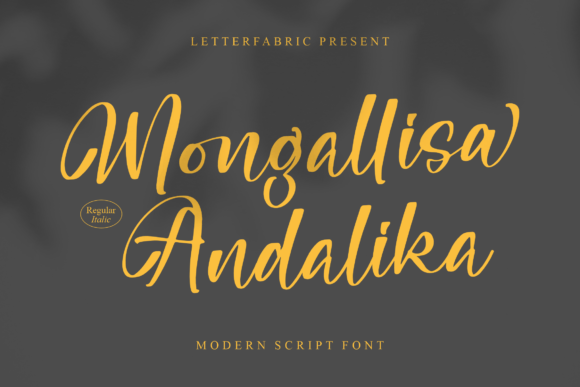
Journey through the world of vintage elegance with Mongallisa Andalika Font, the mesmerizing script that evokes a bygone era. Discover the allure of this enchanting handwritten font, a testament to the timeless beauty of classic typography. Bask in the romantic essence that Mongallisa Andalika Font imparts, adding a touch of nostalgia and charm to your creative endeavors.
With its delicate swashes and graceful curves, Mongallisa Andalika Font is a versatile masterpiece that lends itself effortlessly to a myriad of applications. Craft heartfelt greeting cards that convey your emotions with authenticity. Design captivating headlines that command attention and leave a lasting impression. Transform your social media posts into visually stunning expressions of your brand's identity. Unleash your creativity and explore the endless possibilities that await you with Mongallisa Andalika Font.
Step into the realm of vintage design and embrace the allure of Mongallisa Andalika Font. Let your imagination soar as you envision the myriad ways in which this exquisite font can enhance your creative projects. From elegant wedding invitations to retro-inspired posters, from sophisticated logos to heartfelt personal letters, Mongallisa Andalika Font is your trusted companion, guiding you towards design excellence.
Indulge in the timeless beauty of Mongallisa Andalika Font and witness the transformation of your creative vision into a tangible reality. Experience the joy of crafting designs that exude a sense of nostalgia, elegance, and timeless appeal. Make Mongallisa Andalika Font your font of choice and embark on a creative journey that will leave you inspired and fulfilled.